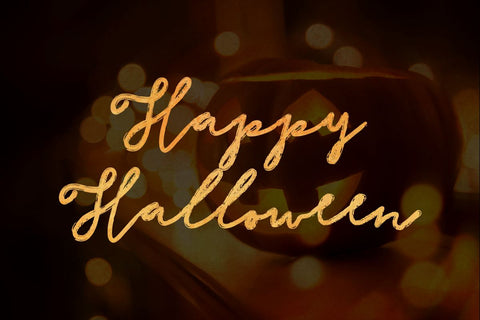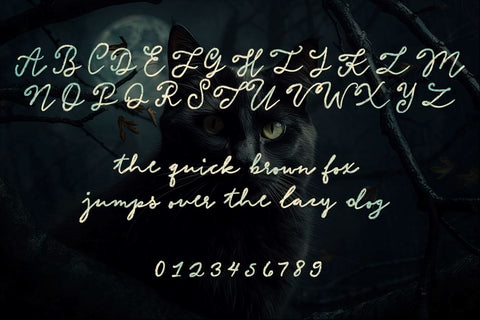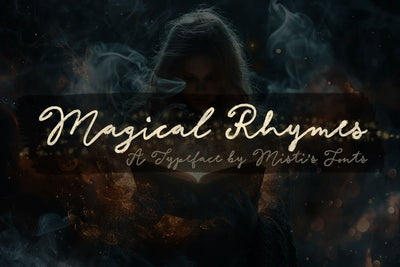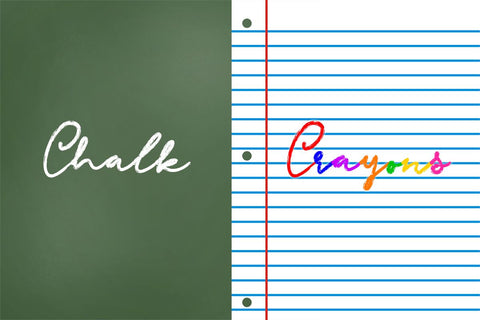
Magical Rhymes
Magical Rhymes is a whimsical cursive font with a chalk-like, bouncy feel, perfect for adding a playful touch to your Halloween projects. Its hand-drawn charm brings a spooky yet fun vibe to invitations, banners, and more. Ideal for crafting magic!